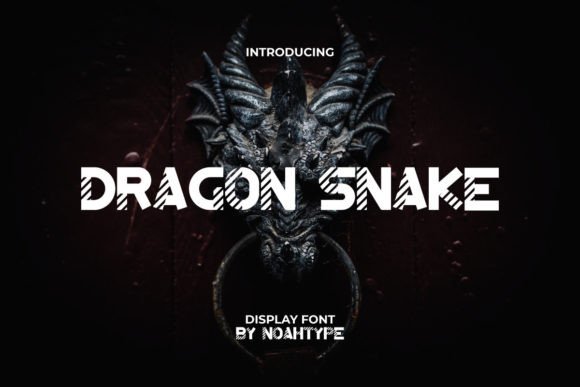
Unleash your creativity with Dragon Snake Font, the ultimate display font that embodies power, elegance, and distinction. Inspired by the sleek curves of a dragon and the mesmerizing patterns of a snake, this font is a masterpiece that will transform your designs into captivating works of art.
With its bold and striking presence, Dragon Snake Font commands attention wherever it goes. Its unique patterns add an element of intrigue and sophistication, making it perfect for a wide range of projects, from fashion magazines to automotive advertisements.
Step into the world of high-end fashion with Dragon Snake Font and create designs that exude luxury and glamour. Its sleek lines and elegant curves will elevate your projects to new heights, leaving a lasting impression on your audience.
For those with a passion for speed and adrenaline, Dragon Snake Font is your perfect companion. Its dynamic and energetic style will infuse your racing and sports-related designs with an exhilarating rush of power and excitement.
But Dragon Snake Font's versatility doesn't stop there. It seamlessly adapts to various projects, including photography, music, and more. Its ability to effortlessly blend with different design elements makes it a true all-rounder that will unleash your creativity in countless ways.